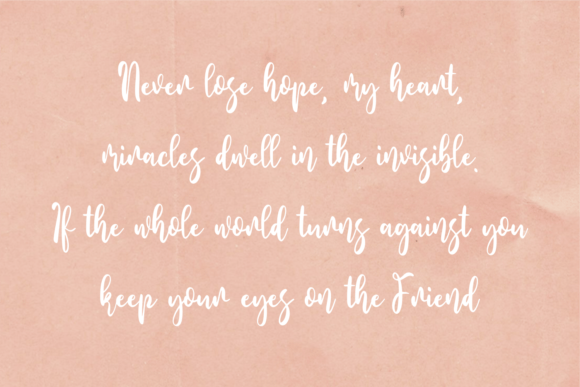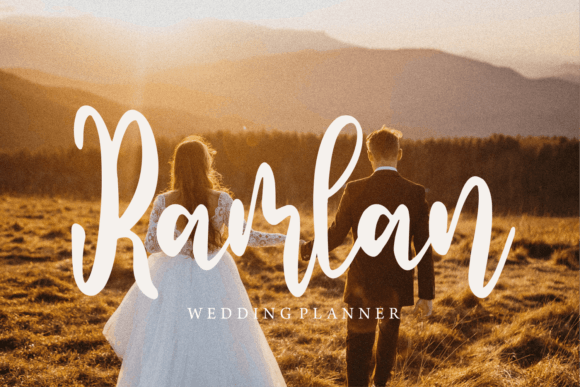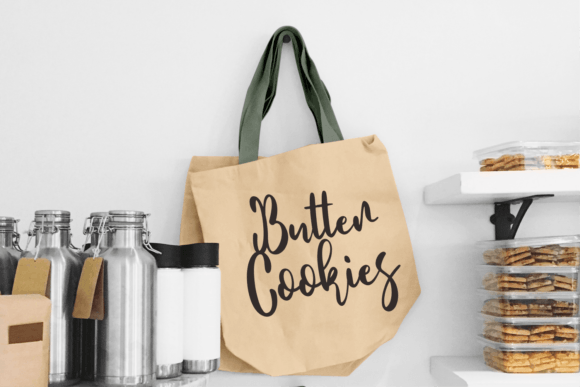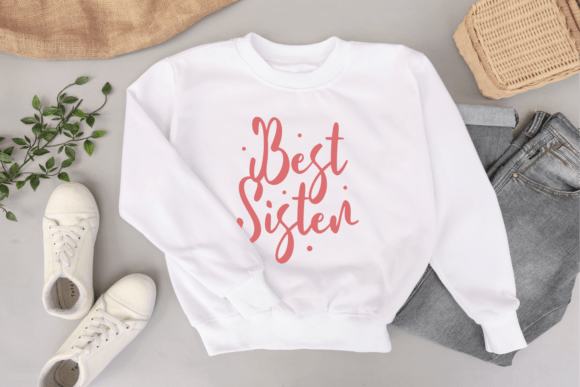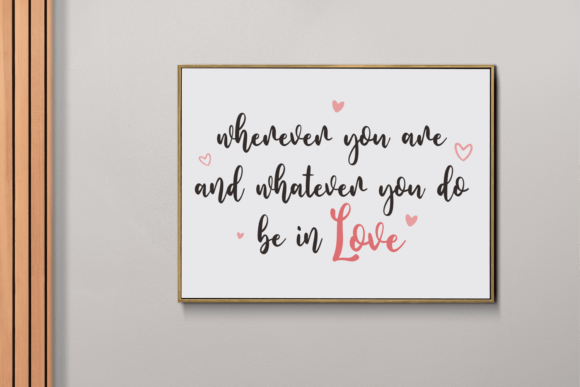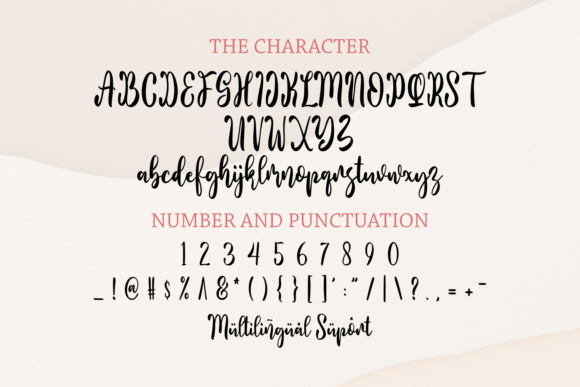
Introducing Champina Font: Elevate Your Design with Elegance
In the world of typography, fonts play a crucial role in conveying the tone and personality of a brand. For designers and crafters looking to make a lasting impression, Champina Font is a game-changer. This fancy and elegant handcrafted font is designed to impress your audience and make your branding shine like never before.
The Charm of Champina Font
Champina Font is more than just a typeface; it’s an experience. With its elegant and wonderful design, this font can make any project dance with sophistication. Whether you’re working on headings, logos, ads, printed quotes, packaging, or even your website or social media branding, Champina Font is the perfect choice. Its versatility knows no bounds, allowing you to experiment with various design elements and bring your creative vision to life.
What Sets Champina Font Apart
Every letter in Champina Font has a unique and beautiful touch, which will make your design come alive. The attention to detail is evident in each character, ensuring that your projects stand out from the crowd. The font’s handcrafted nature adds a personal touch, making it perfect for designers and crafters who value individuality and exclusivity.
With Champina Font, the design possibilities are endless. Here are a few ideas to get you started:
- Headings and Titles: Use Champina Font to create stunning headings and titles that grab attention and convey sophistication.
- Logo Design: Craft a memorable logo that reflects your brand’s personality and values.
- Advertising: Make your ads stand out with Champina Font’s elegant and refined design.
- Printed Quotes: Add a touch of elegance to your printed quotes and make them shareable.
- Packaging: Elevate your packaging design with Champina Font’s unique and beautiful touch.
- Website and Social Media Branding: Consistency is key in branding. Use Champina Font to create a cohesive visual identity across your website and social media platforms.
Why Choose Champina Font?
There are countless fonts available, but Champina Font stands out for several reasons:
- Elegance: Champina Font exudes elegance and sophistication, making it perfect for high-end brands and designs.
- Versatility: This font can be used across various design projects, from print to digital.
- Uniqueness: Each letter has a unique touch, ensuring your design is one-of-a-kind.
- Easy to Read: Despite its elegant design, Champina Font remains easy to read, making it perfect for body text and headings.
Tips for Using Champina Font
To get the most out of Champina Font, consider the following tips:
- Pair it with Simplicity: Balance Champina Font’s elegance with simple backgrounds or textures to avoid overwhelming the design.
- Experiment with Colors: While Champina Font looks stunning in classic colors like black and white, don’t be afraid to experiment with bold hues.
- Mix and Match: Combine Champina Font with other fonts to create a unique visual identity.
Champina Font is a masterpiece for designers and crafters seeking to elevate their projects with elegance and sophistication. Its handcrafted nature, unique touch, and versatility make it an excellent choice for various design applications. Whether you’re looking to create stunning headings, memorable logos, or cohesive branding, Champina Font is the perfect tool to bring your creative vision to life.